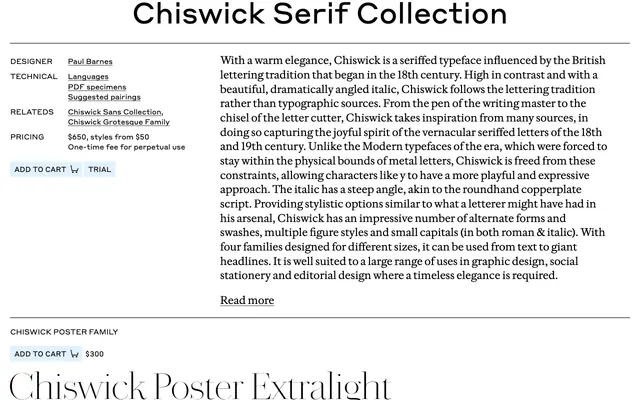
Chiswick Serif Collection
Commercial Type · Paul Barnes
A warm, lettering-based serif by Paul Barnes drawing on 18th-century British writing masters, with a copperplate italic and four optical sizes.
A high-contrast serif by Paul Barnes that follows the British lettering tradition of the 18th and 19th century rather than the Modern typographic sources of the era. The italic carries a steep, copperplate-style angle, and the family ships with an extensive set of swashes, alternates, small capitals and figure styles in both roman and italic. Four optical sizes (Poster, Headline, Deck and Text) cover everything from giant display to running text. Sits in editorial design, social stationery and luxury identity work where a timeless elegance is wanted.
Commercial Type describe Chiswick as a seriffed typeface drawn from the British lettering tradition that began in the 18th century, following lettering rather than typographic sources, with a steeply angled italic in the spirit of roundhand copperplate script. Sits between Modern and writing-master lettering, with extensive swashes and alternates.